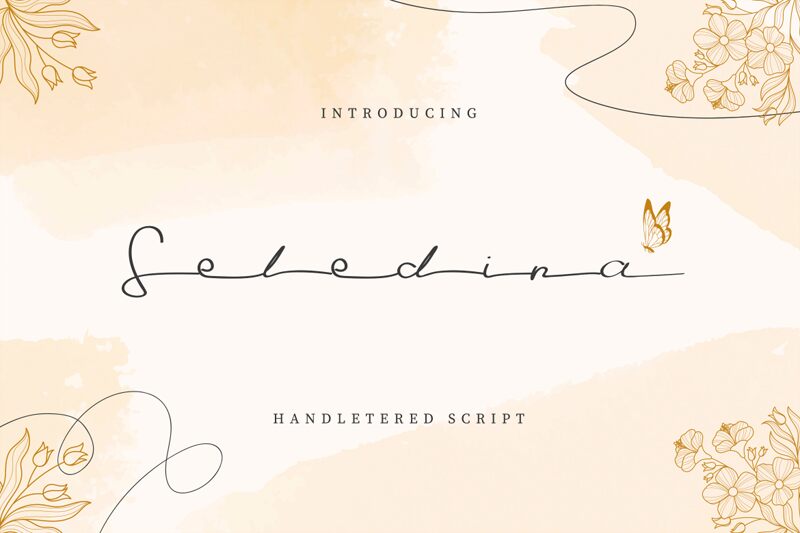
Seledina font is a handwritten typeface designed by Typefactory.
It's a handwritten font with elegant style making it a perfect font for all of your beauty-related desires.
Whether you're creating a logo, quotes, brand, and many more that need an extra touch of elegance for your project, Seledina will provide you with all of the beauty which you need.